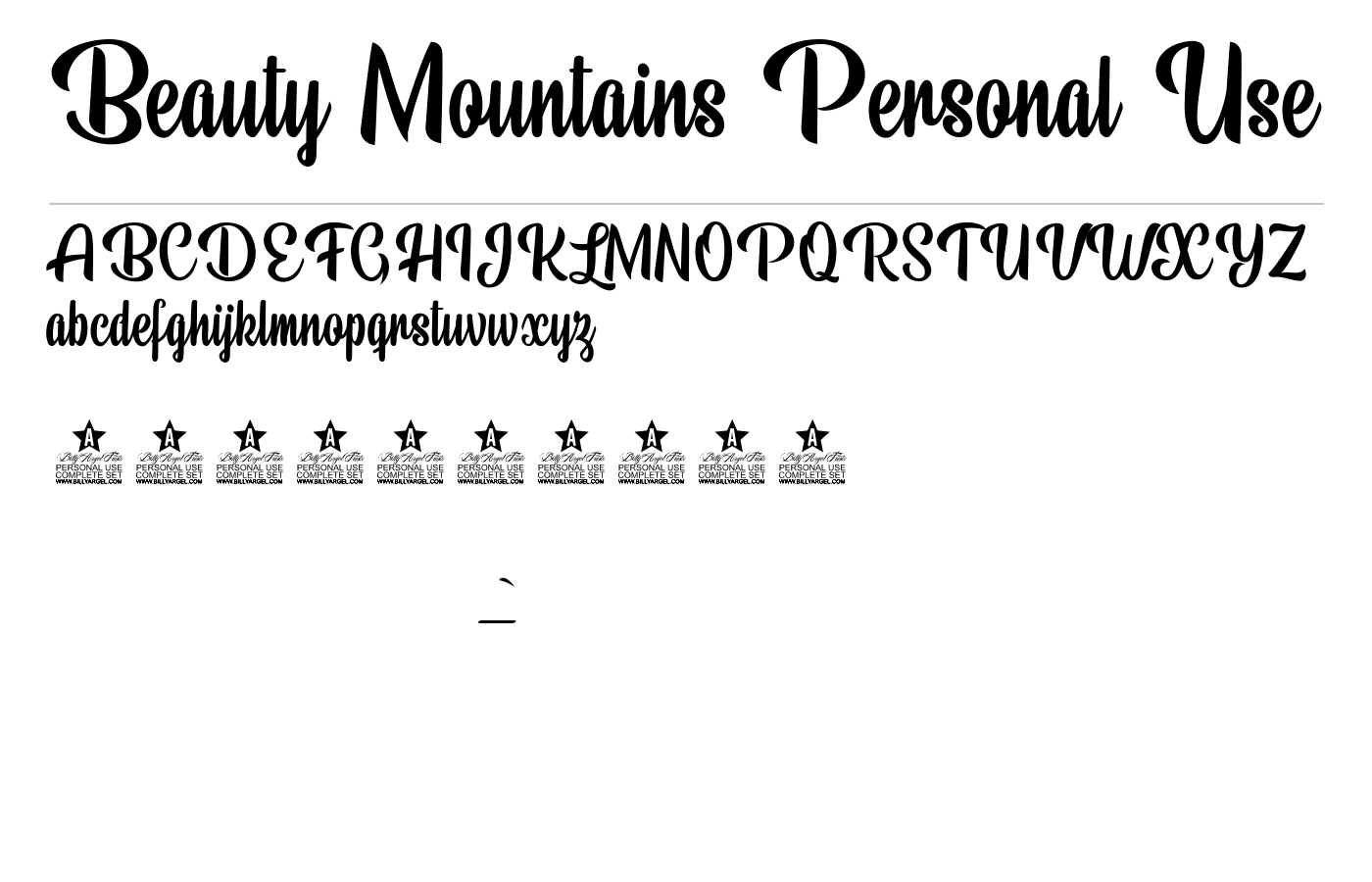
Beauty Mountains Personal Use Font is a charming script typeface that combines a bold, flowing style with elegant rounded strokes, giving it a friendly yet sophisticated feel. Its high contrast and distinctive letter shapes make it ideal for beauty, fashion, and lifestyle branding, as well as eye-catching headlines and packaging design. This font works beautifully where a personal, stylish touch is needed to convey warmth and creativity.
Beauty Mountains Personal Use Font
About Beauty Mountains Personal Use Font
| Font family | Beauty Mountains Personal Use Font |